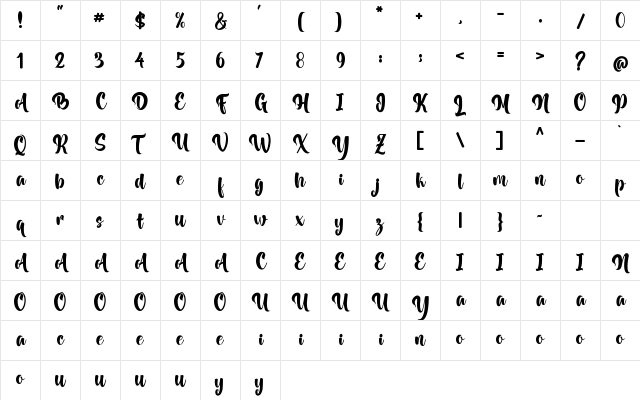
Easter Bold is a composed and adaptable typeface that performs quietly and consistently across a wide range of design contexts. Its bold stroke weight gives it real presence on the page.